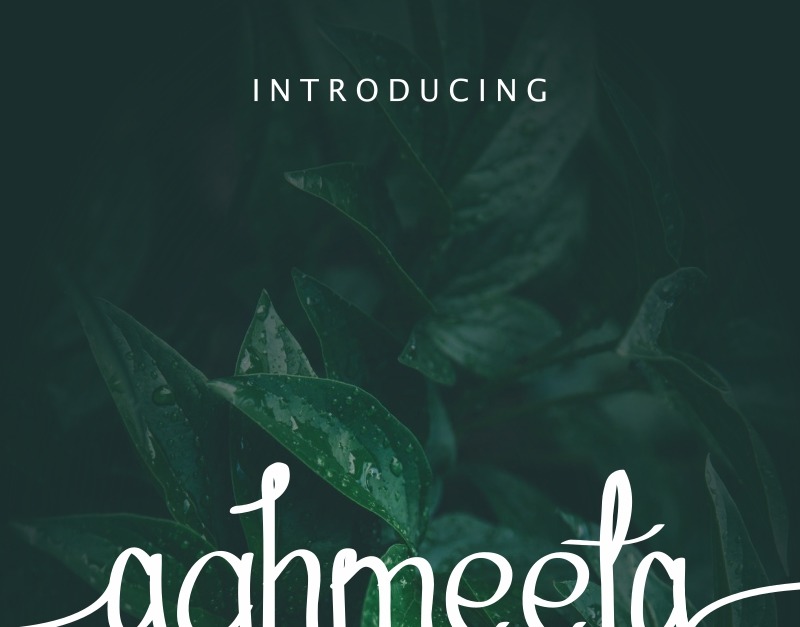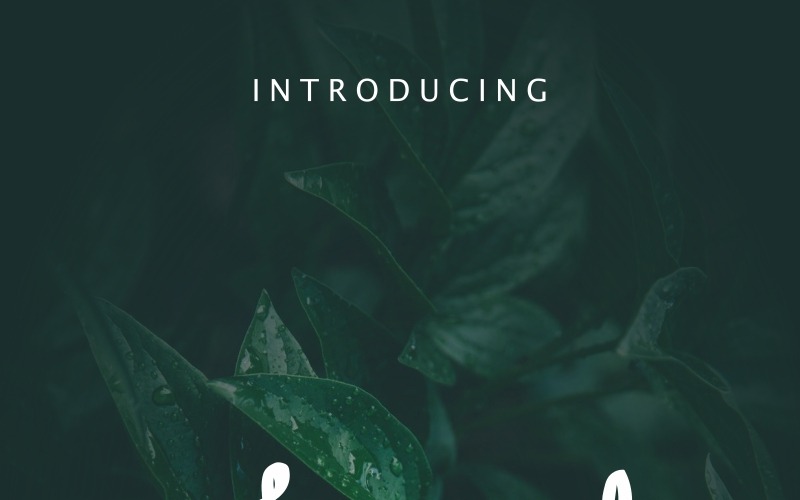
Aghmeeta Font
Please welcome! The font by Edric Studio in 2020.
Aghmeeta is a handwritten font, made by our lovely letter artist in Bandung, Indonesia.
Aghmeeta Font has so many alternatives on almost each gplyhs. You can use it as for any of your designs concept.
This is a new modern decorative font with handwriting style. It has unique glyhps set that is the elegant, strong, vintage, stylish, sophisticated, complex, speed and classic pen brush style,.
Plus it support multi-language